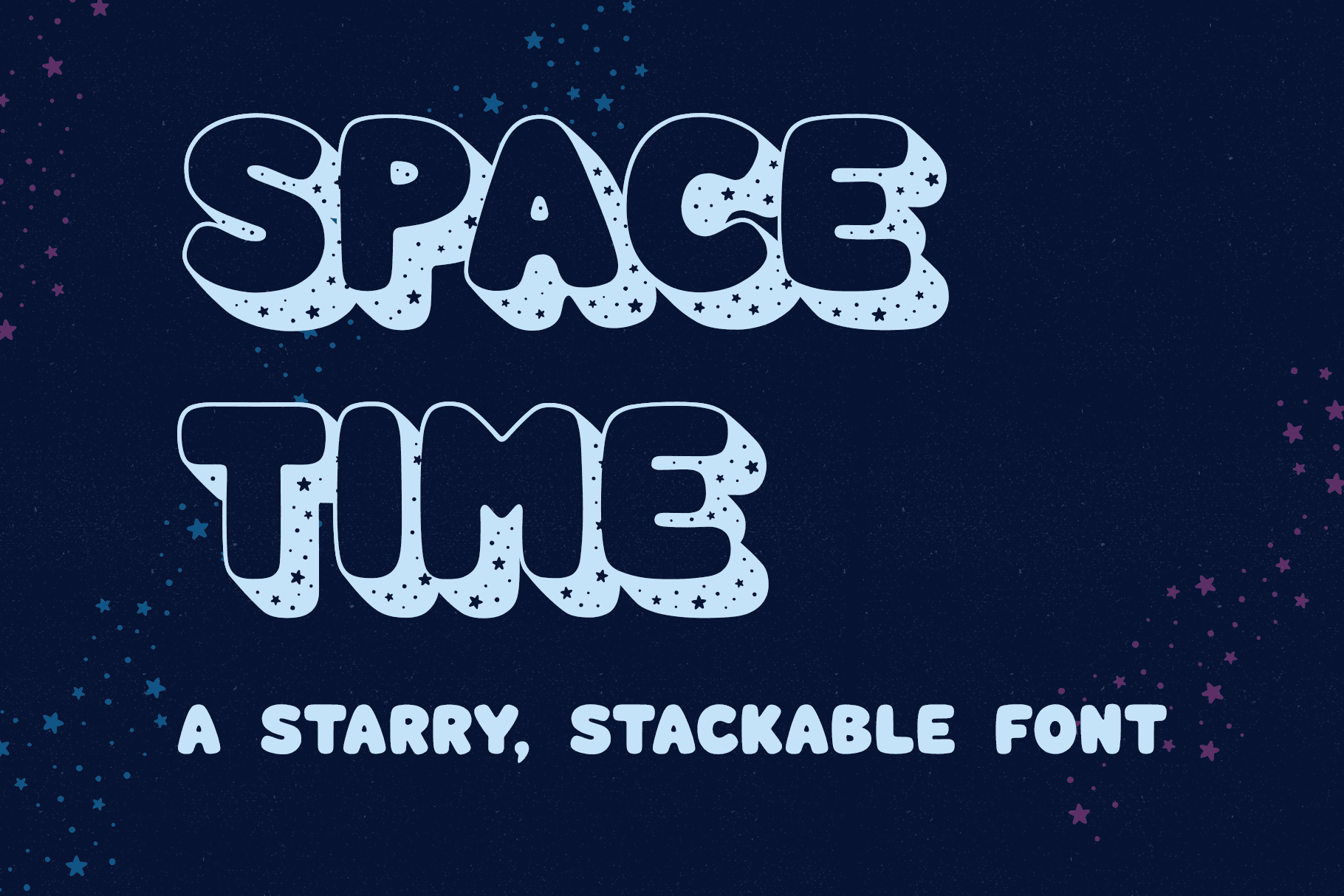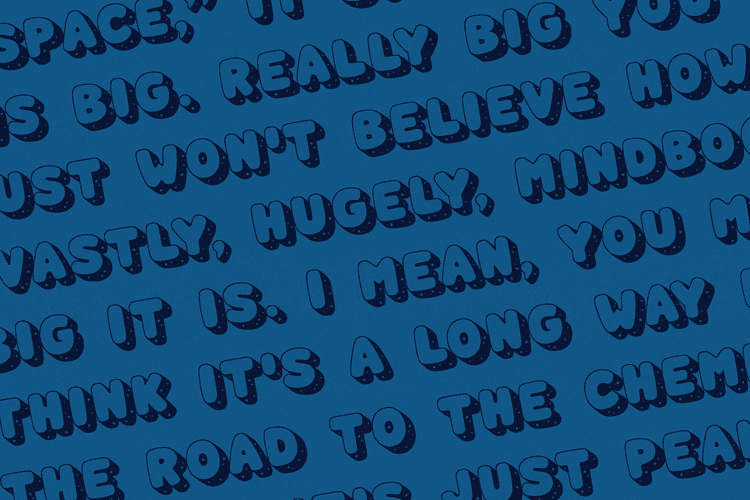
Space Time
What can I say? I like fonts with stars.
Space Time is a hand drawn font with a lot of variety. I started designing the regular version with the characters slightly touching but it wasn't quite what I had in my head. I’d imagined tightly spaced letters with overlapping shadows and the only way to get that effect was to create a second version with stackable layers. That means this download includes regular, base, outline, shadow, and stars files. Plus, the base and outline can be used for stacking or work fine as standalone fonts.
This font is all caps but the lowercase letters feature alternative styles.